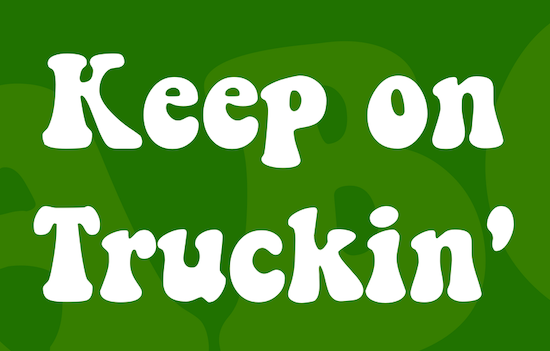
Keep on Truckin Font
Keep on Truckin font is a great display typeface with an appealing retro style. This Display font was released by Font Diner, and it has all characters with imperfect shapes and this gives a natural look to every design.
This Keep on Truckin font first debuted over the TrueType file format along with gorgeous features. Besides, its sharp surface and exquisite glyphs, this font has great repute in the design market today. This Keep on Truckin font is a highly detailed handcrafted typeface. This retro font and Casino Font are two display typefaces that evoke very different moods and visual styles.
This classy Keep on Truckin font is very perfect for both print and web displays so that you can make it useful in the display agency and printing thoroughly. Moreover, Keep on Truckin font can also use for app and game development will also a right and gorgeous idea. I believe this Retro font will assist you in meeting your audience and clients’ requirements.
It feels playful with an incredible vintage aesthetic. This masterfully designed display font is a true must-have. Keep on Truckin font comes with a vintage, modern, and retro touch in it. This hand-letter display font is great for your creative design project for example Label, apparel design, logotype, badges, packaging, invitation cards, posters, logos, and much more.
While it may be possible to combine these fonts, it’s important to consider the overall mood and aesthetic of the design to ensure that the typefaces work well together. For example, Gatsby Font could pair well with it in a design that requires a high-end and glamorous feel, while Keep on Truckin Font could be used to complement Gatsby Font in designs that require a vintage or retro look. Ultimately, it’s up to the designer to choose typefaces that best suit the specific design context and desired mood.